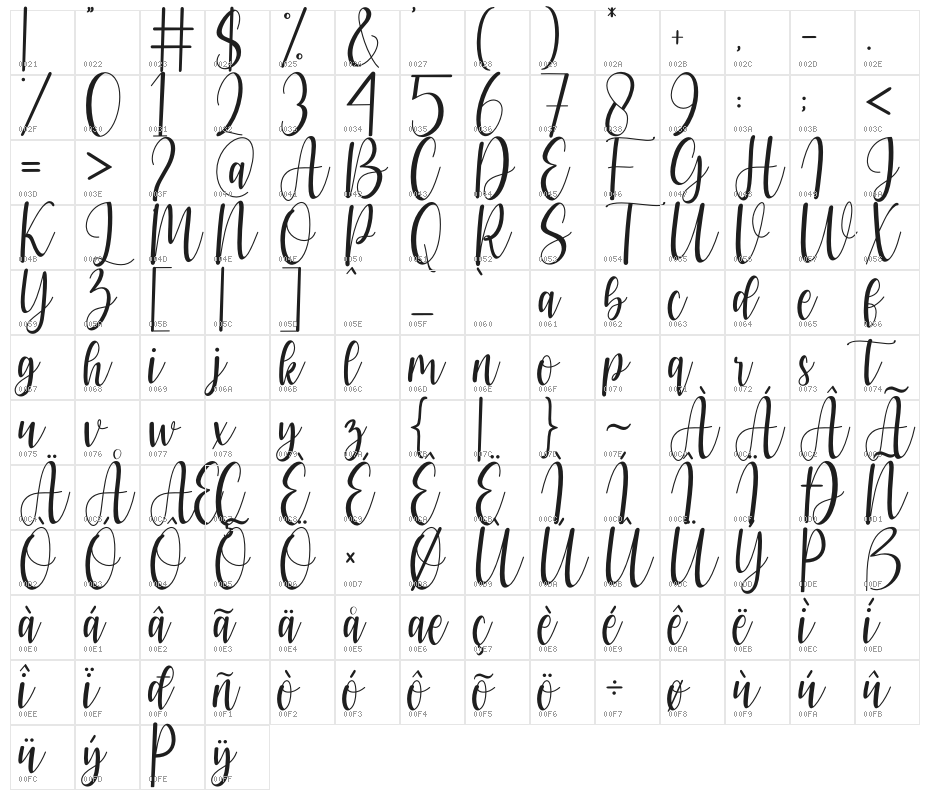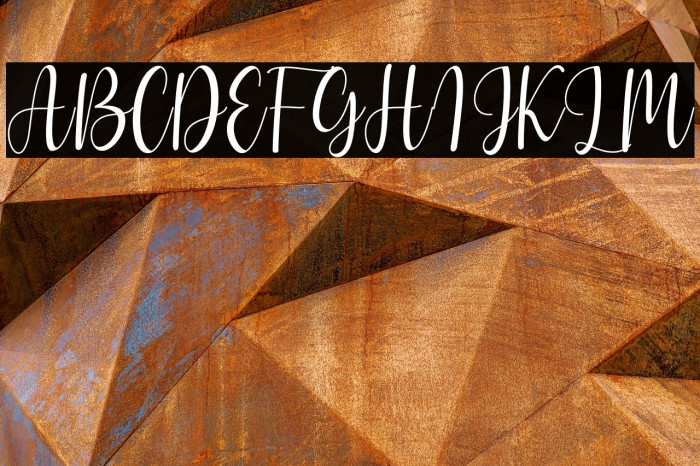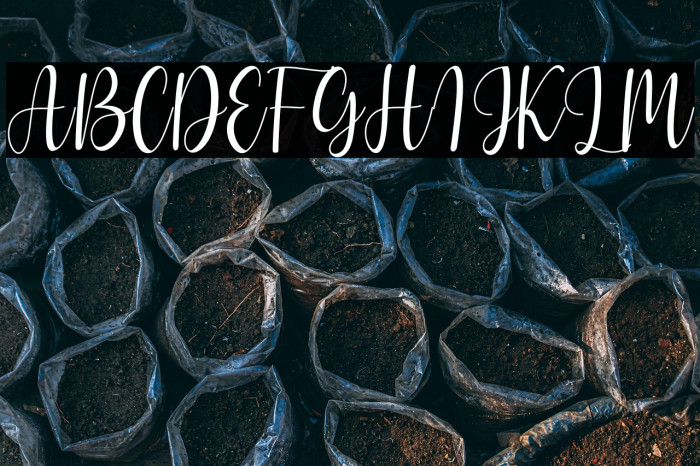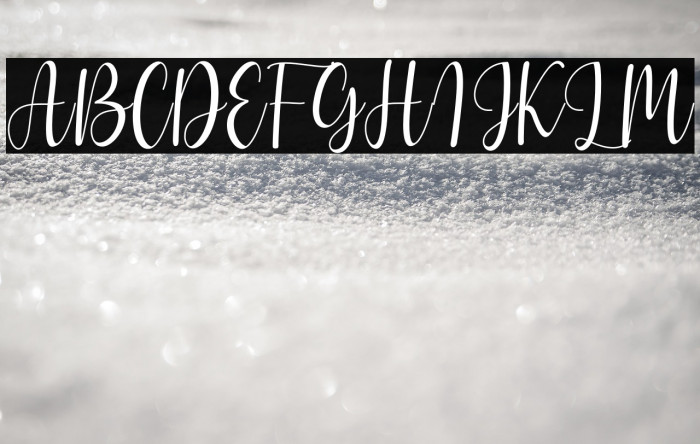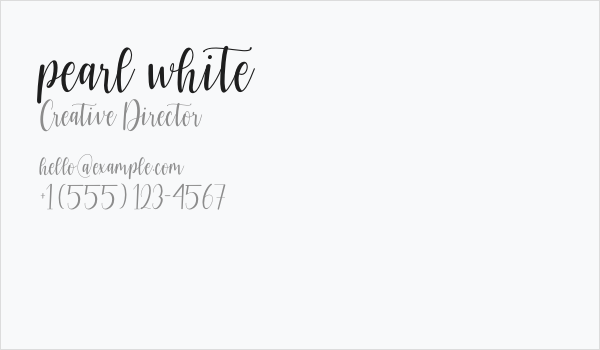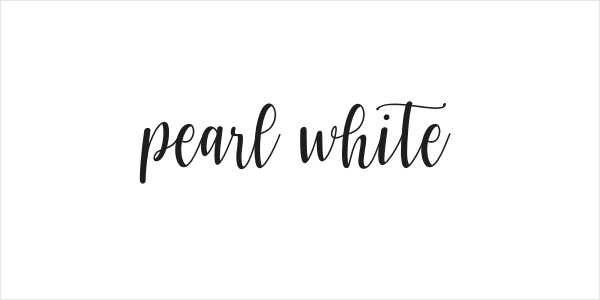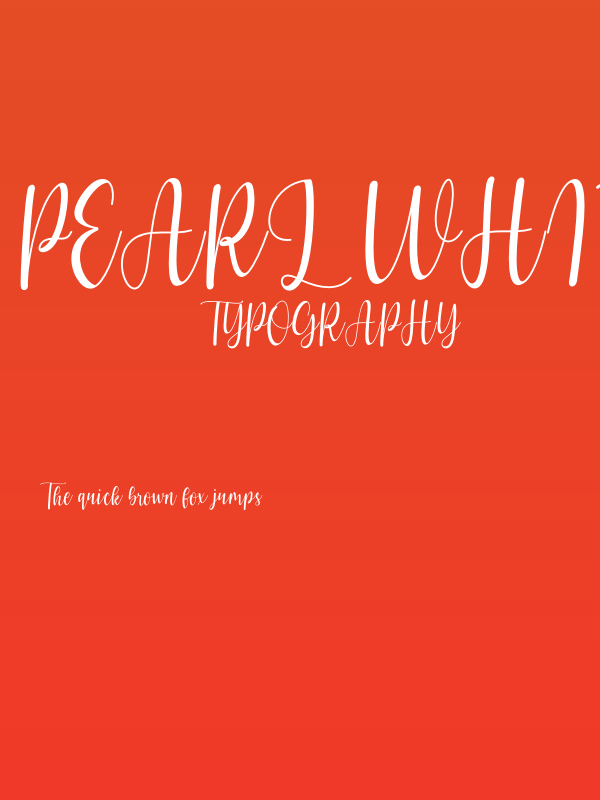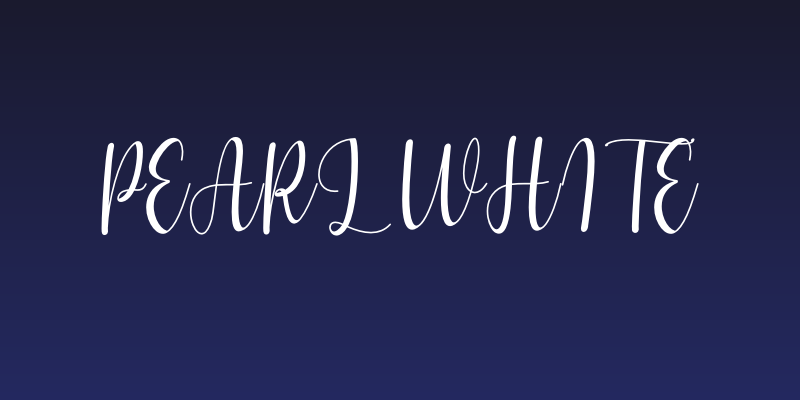
pearl white Font
pearl white Description
This font features an elegant and flowing script style, characterized by its smooth, cursive strokes and graceful curves. The uppercase letters are tall and slender, with a slight slant that adds a dynamic feel. The lowercase letters maintain a consistent flow, with some characters featuring loops and flourishes that enhance the overall aesthetic. The numerals are stylish and complement the script style, while the special characters are designed to match the elegance of the alphabet. This font exudes a sense of sophistication and charm, making it ideal for projects that require a touch of elegance.